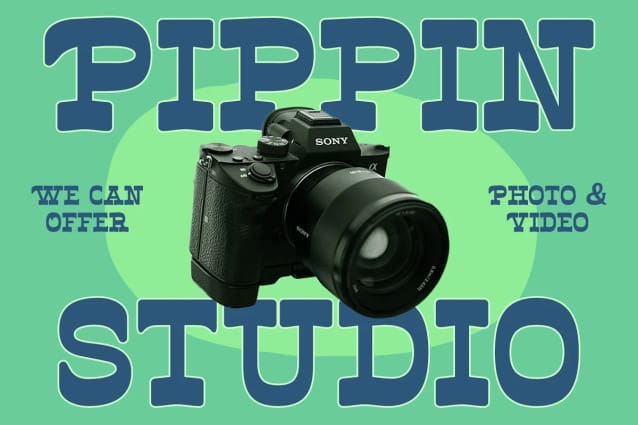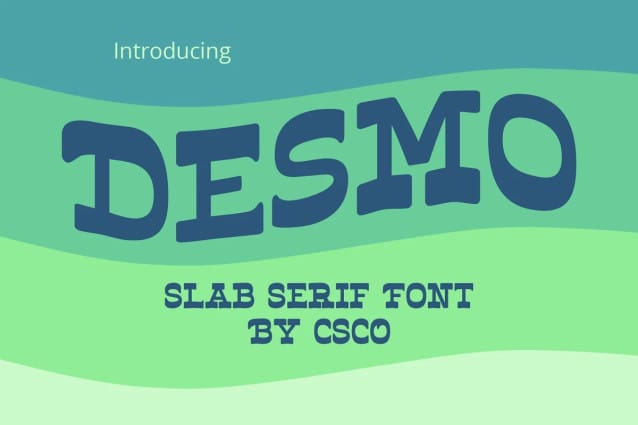
Desmo Font
Desmo Font – Reversed Contrast Slab Serif Font. Unique Design Meet Desmo Reversed Contrast Slab Serif Font. Its reversed contrast sets it apart. Thick horizontal lines and thin verticals create a striking look. This design choice grabs attention, perfect for impactful displays.
Versatile Display Font Desmo shines in display settings. Whether for headlines, posters, or advertising, it stands out. Its bold features ensure readability from a distance. Moreover, its unique style makes every design engaging.
Engaging Typography Desmo’s typography is designed to captivate. Its slab serifs add a touch of elegance. The font’s balanced spacing ensures clarity in every word. Therefore, it’s ideal for brands aiming to make a statement.